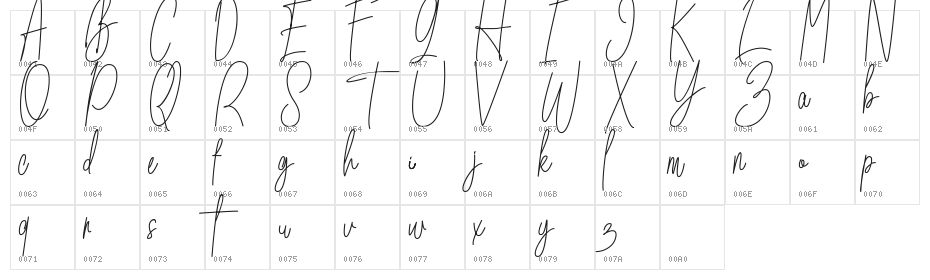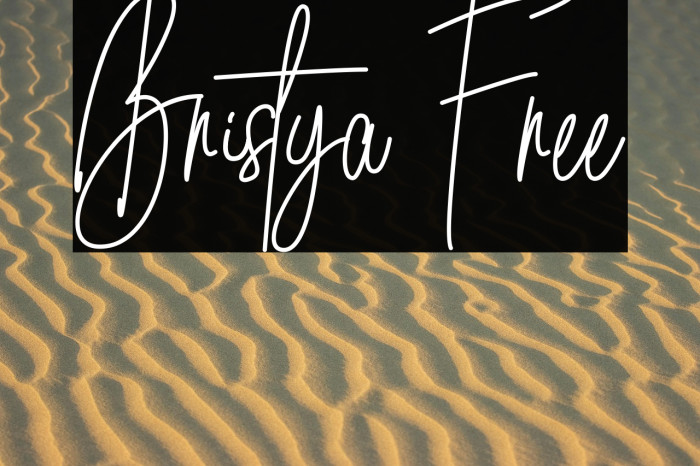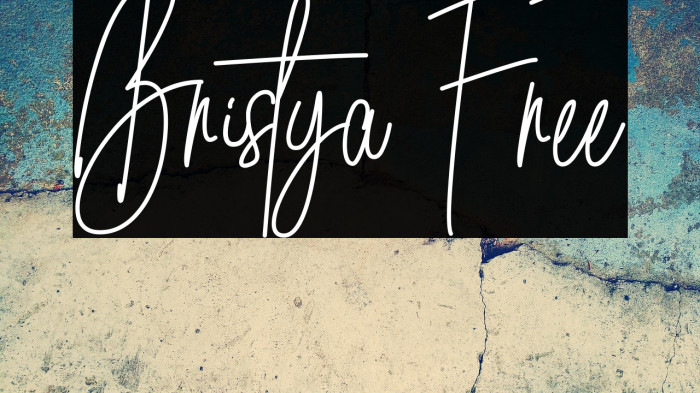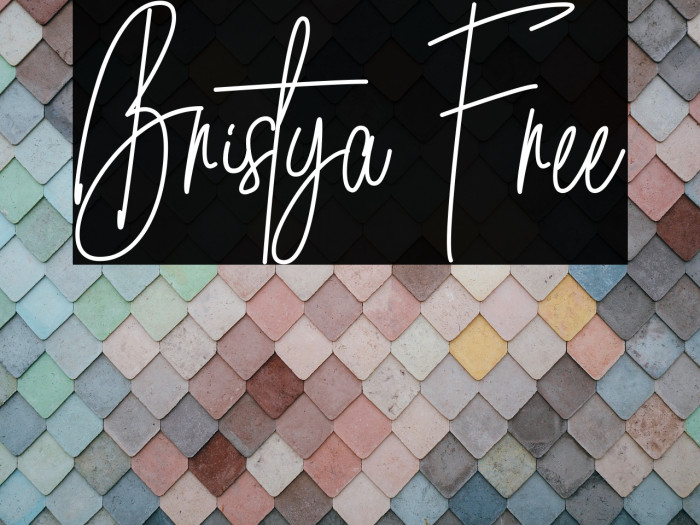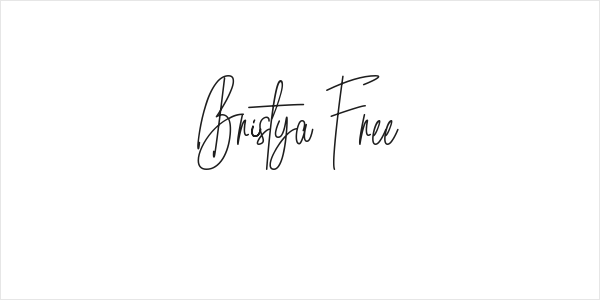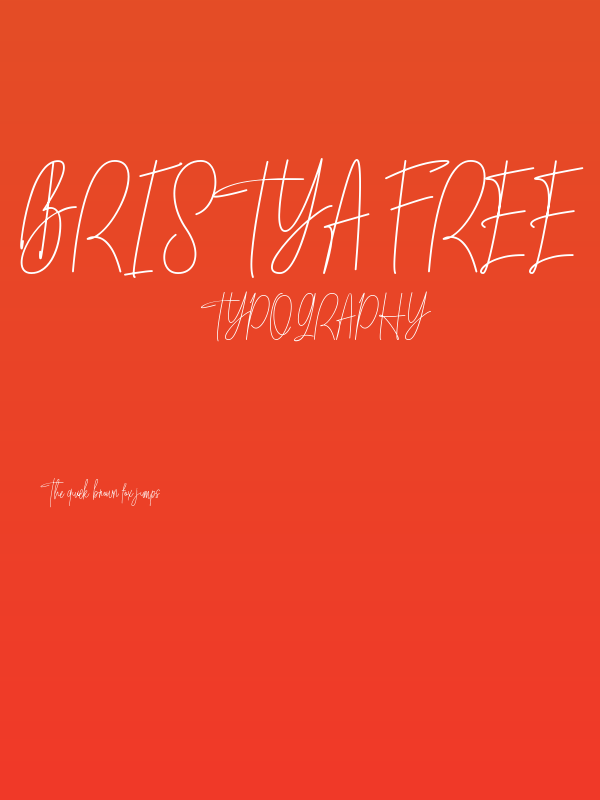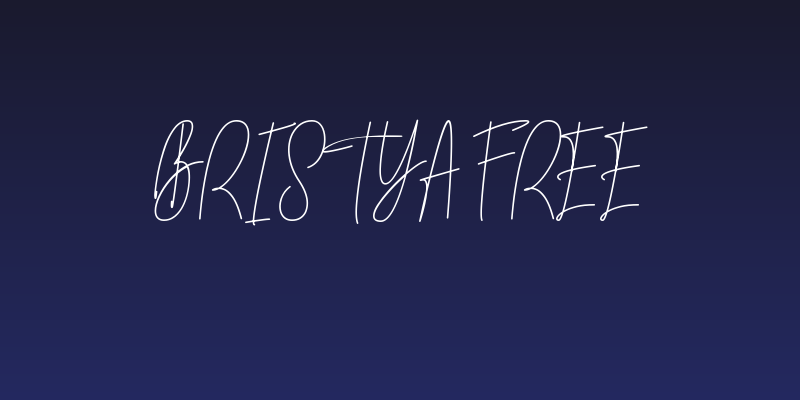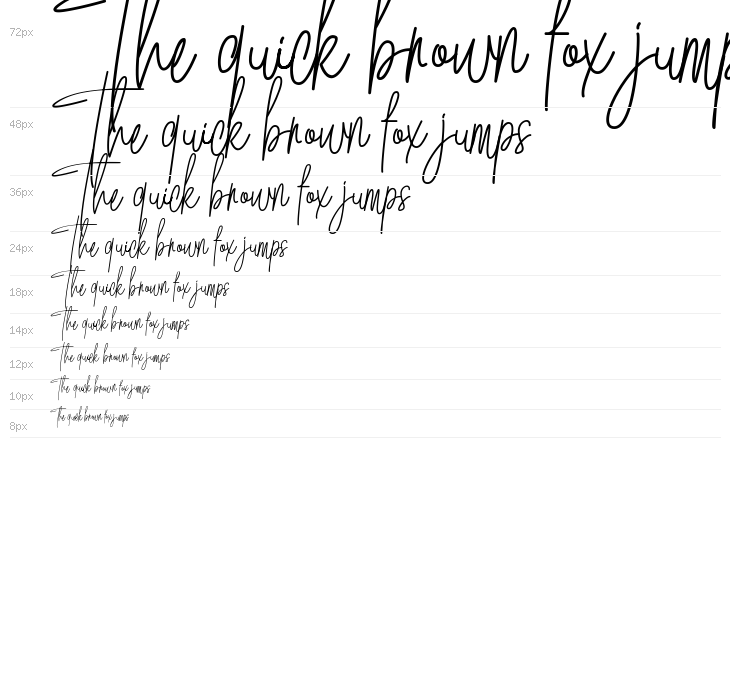
Bristya Free Font
Bristya Free Description
This font features a distinctive handwritten style with elongated, flowing characters that convey a sense of elegance and fluidity. The uppercase letters are tall and slender, with a slight slant that adds a dynamic feel. The lowercase letters maintain a consistent style, with smooth curves and loops that enhance the overall aesthetic. The numbers and special characters are designed to match the graceful appearance of the alphabet, ensuring a cohesive look across all text. This font's unique style makes it suitable for creative and artistic projects where a personal touch is desired.